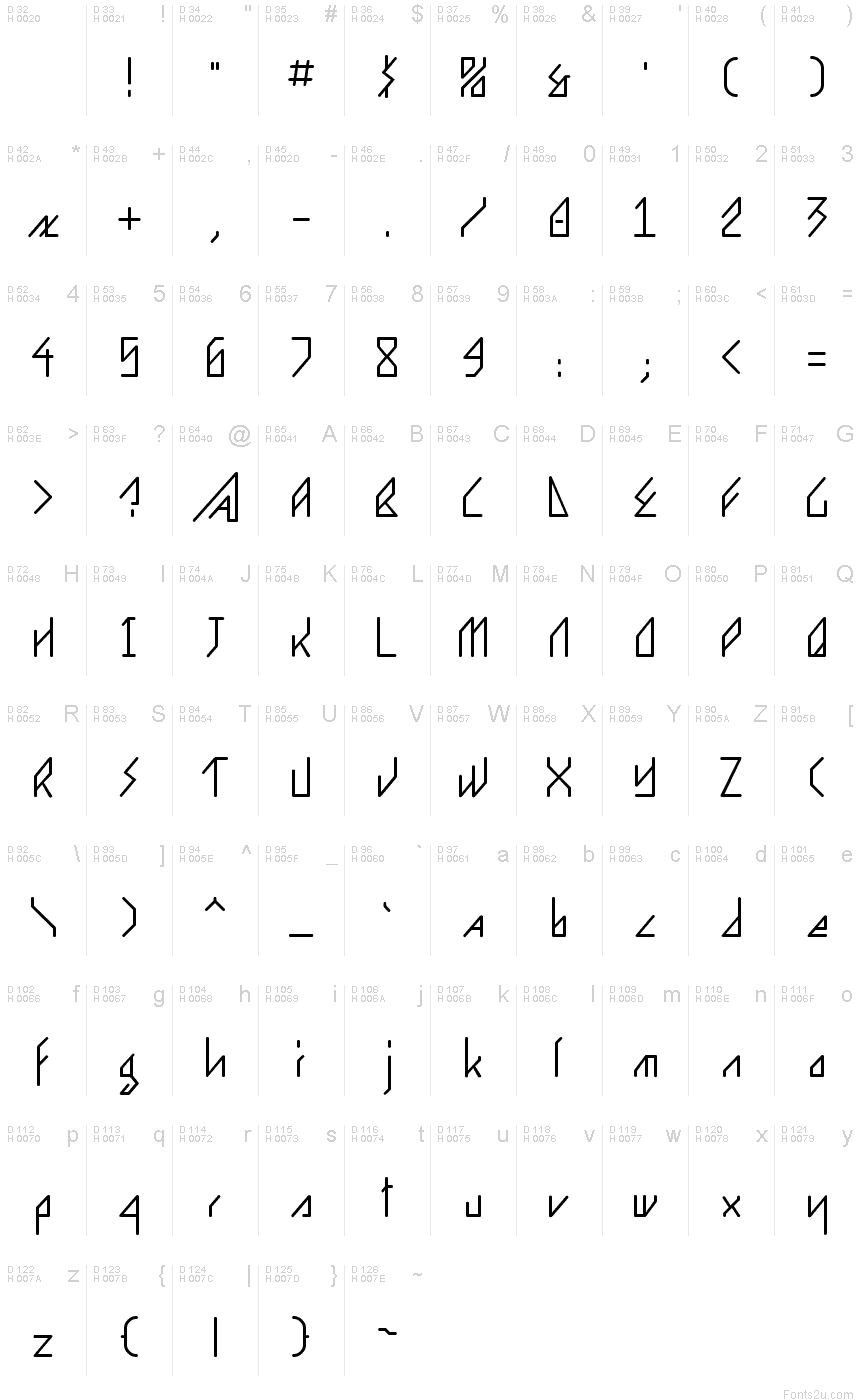
Ergonome
The first character built in this font was the E, which was inspired by enormous Chinese calligraphy on the side of a truck that delivered rice to Chinese restaurants. After the E was shaped properly, it dictated the rules of stroke and angularity for the rest of the font's characters. This font was named Ergonome because its overall appearance somewhat reminds of hand-rests or ergonomic keyboard extensions. It is recommended to use this font at sizes larger than 14 point.